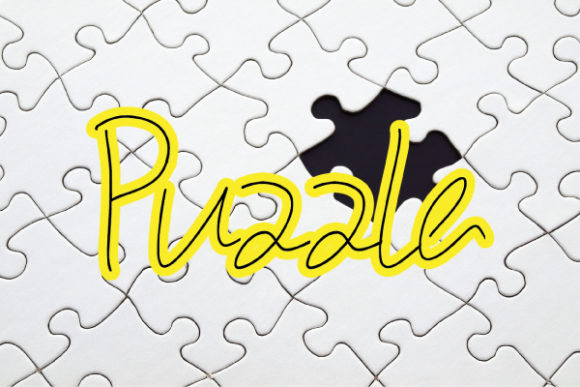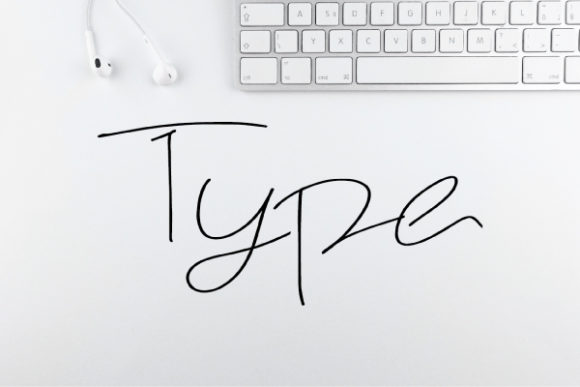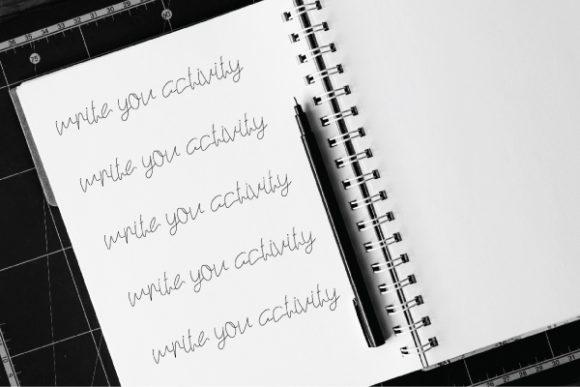
Puzzle Font
About Puzzle Font
Puzzle is a unique and a bit quirky handwritten font. This original look will appeal to a wide range of crafty ideas, from letterheads and titles, to stationery.